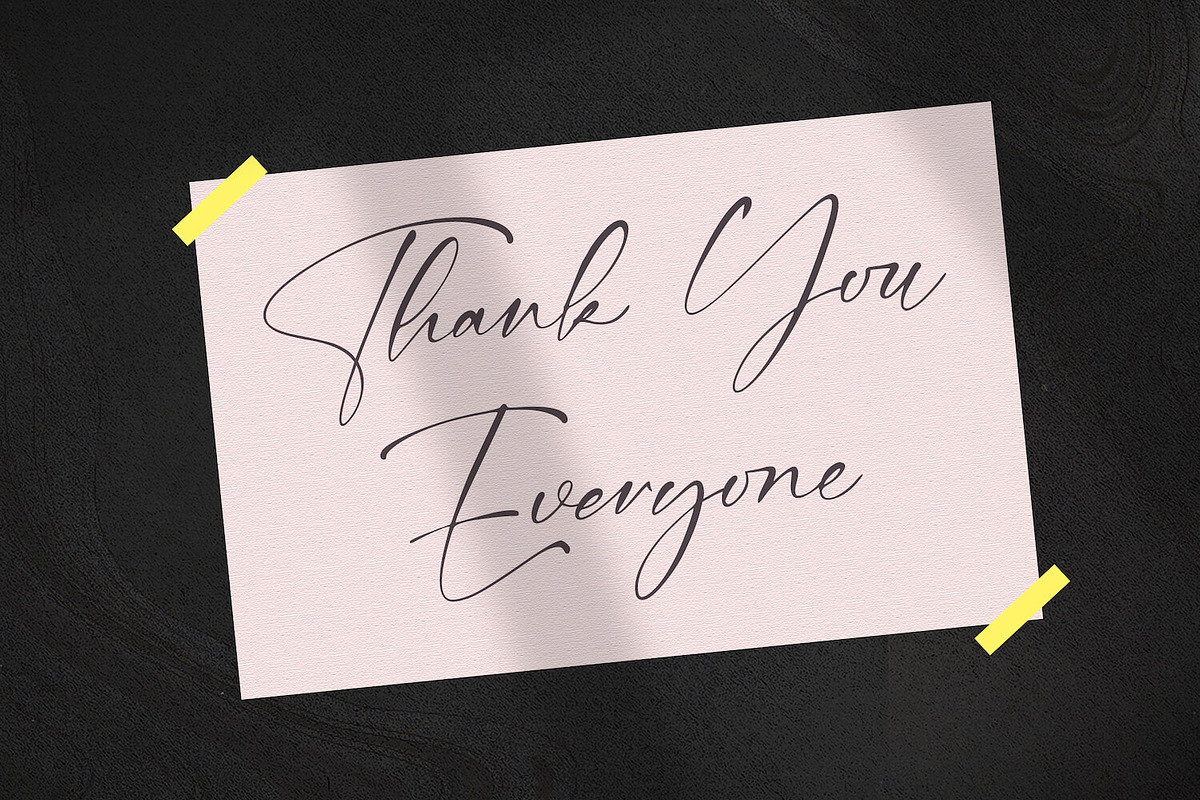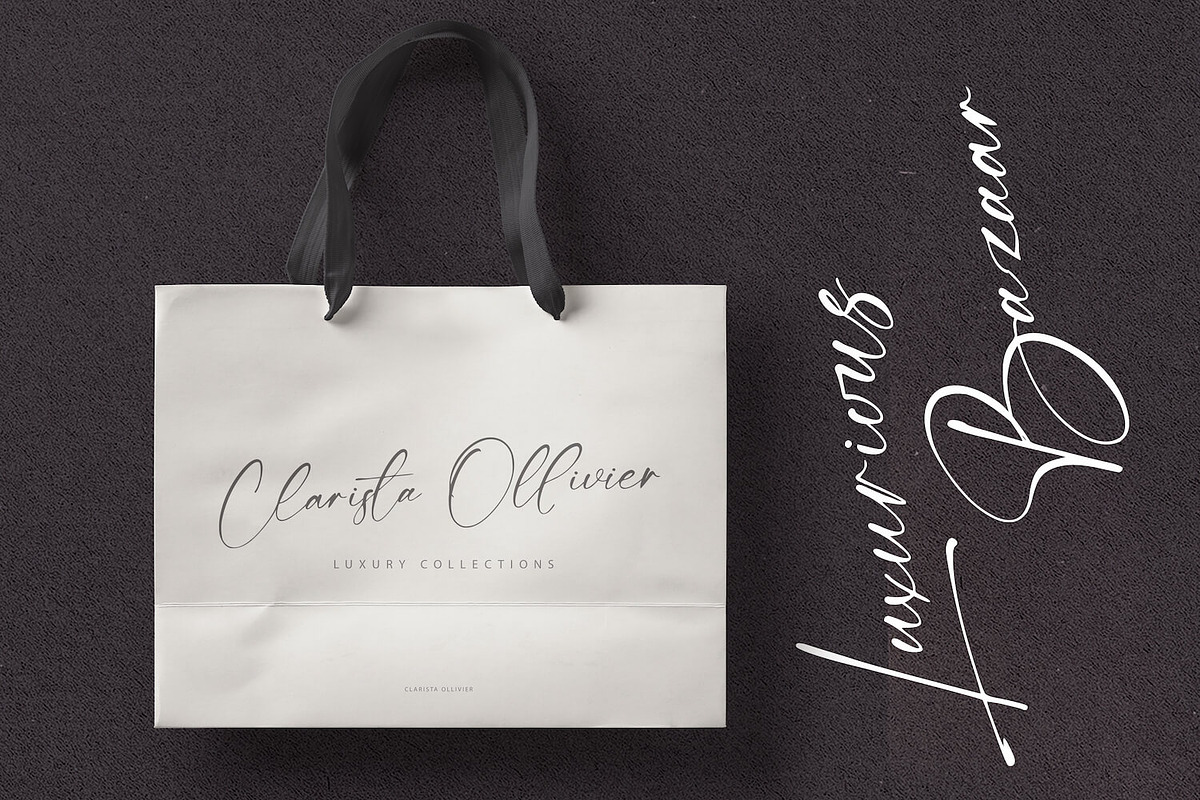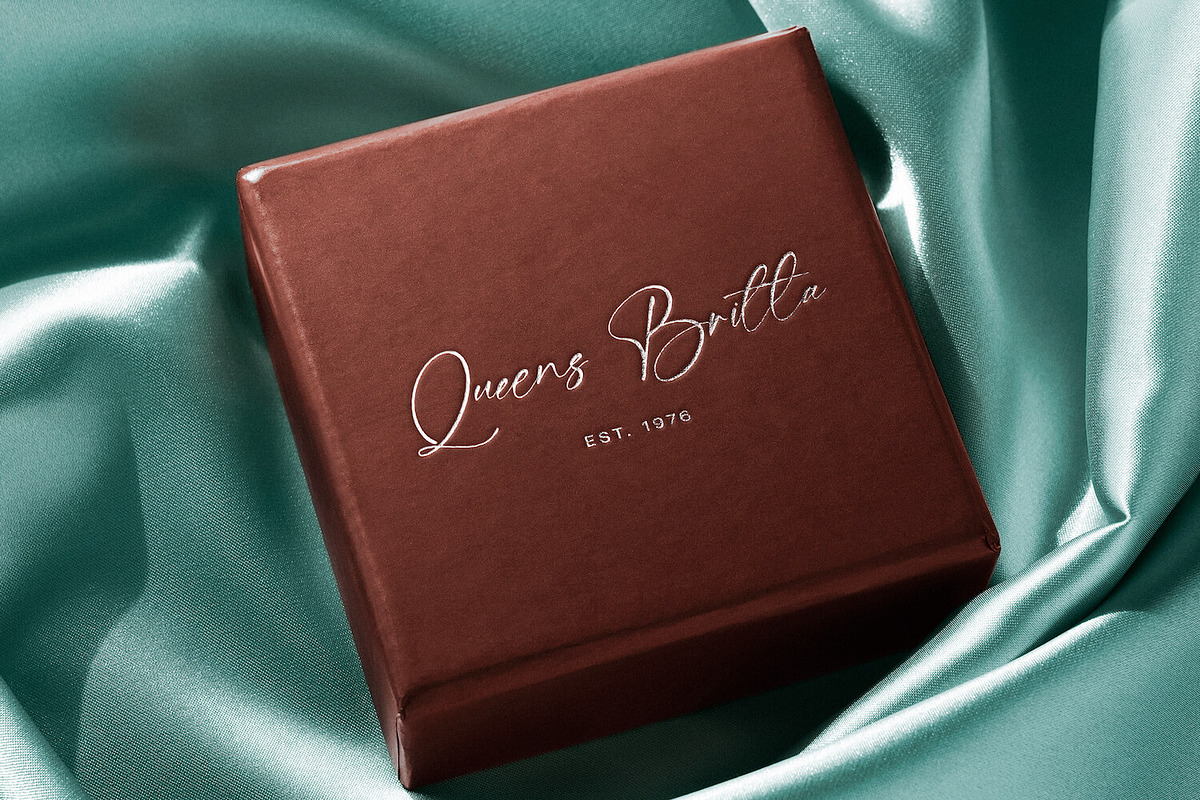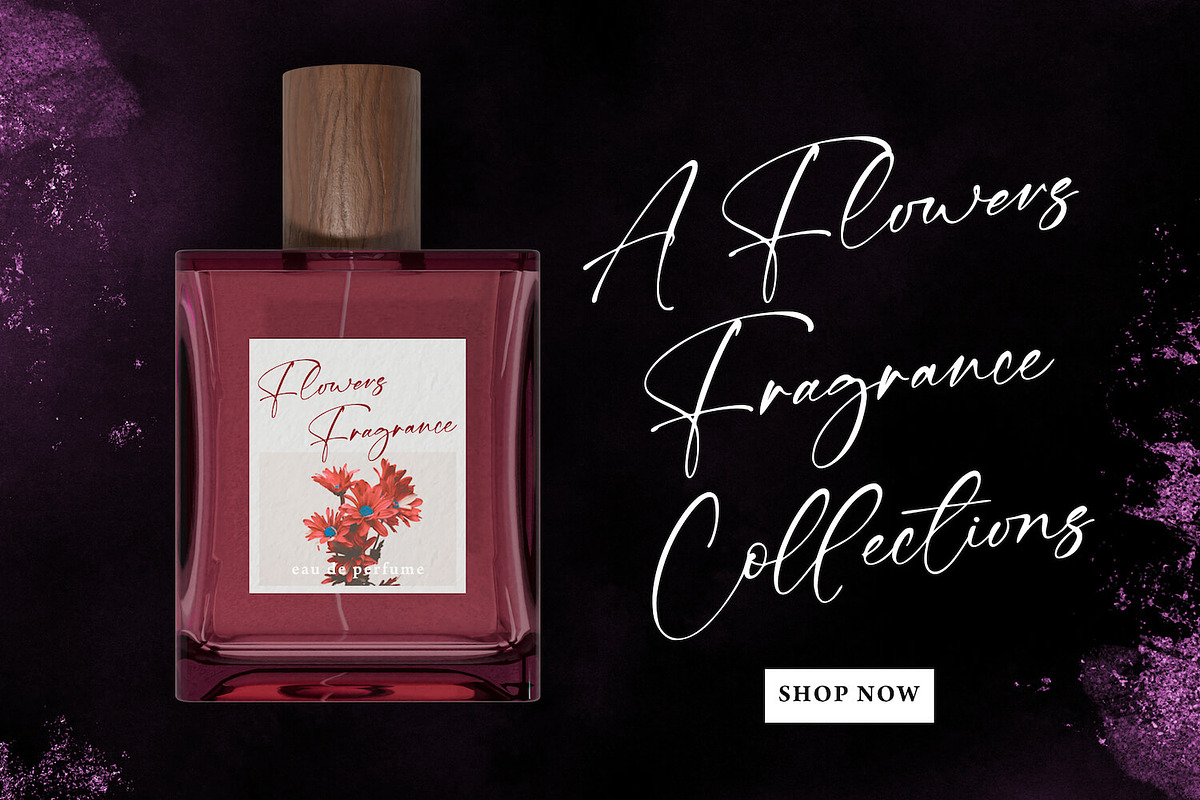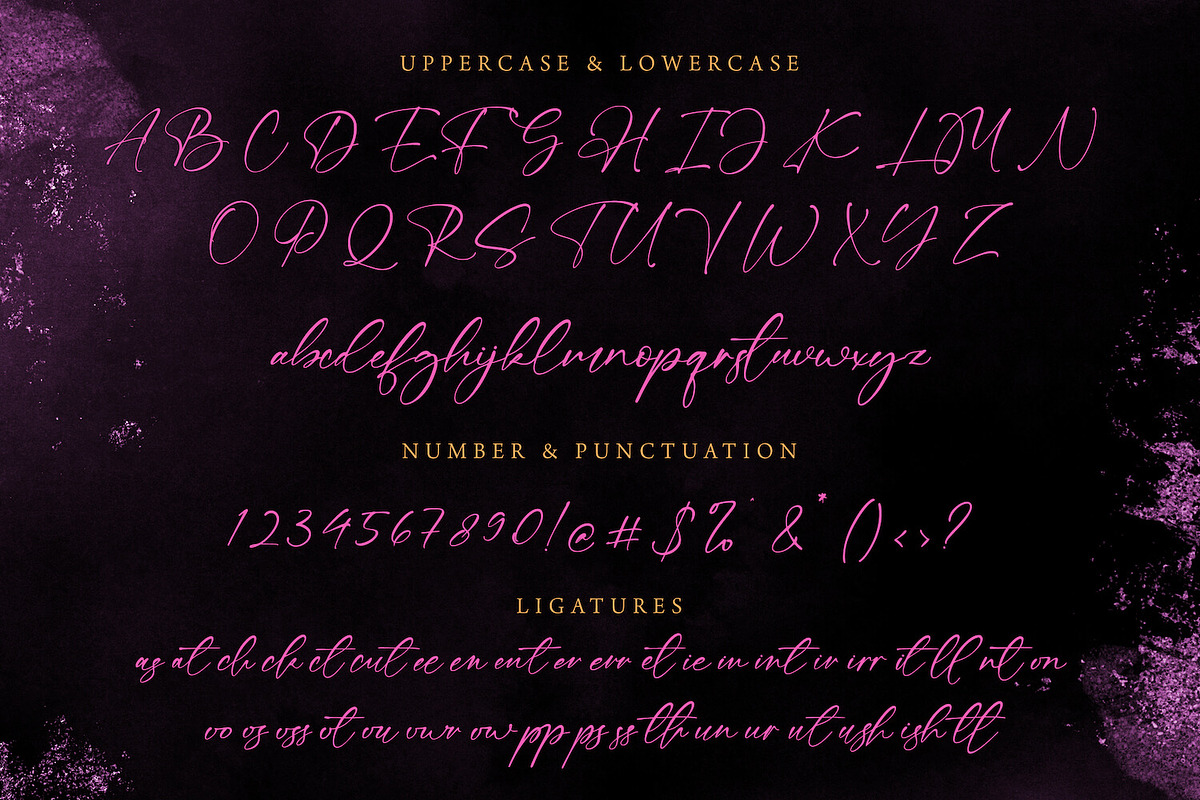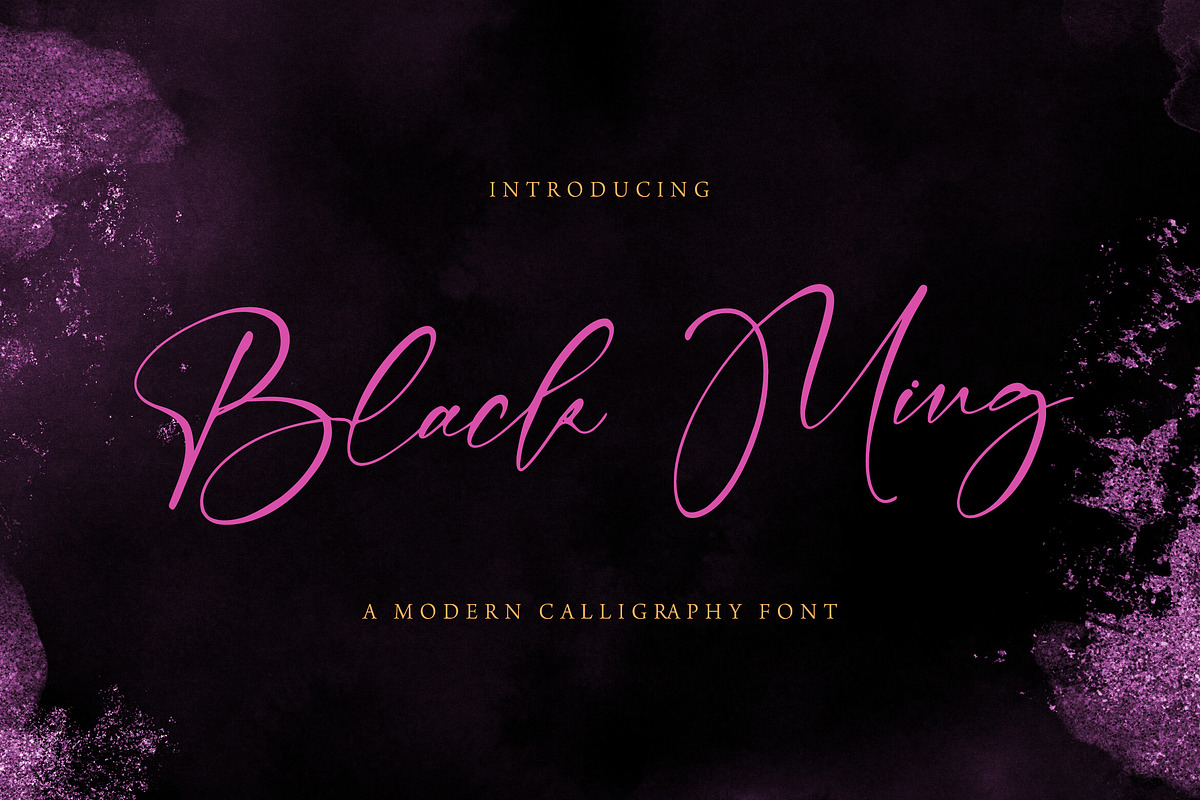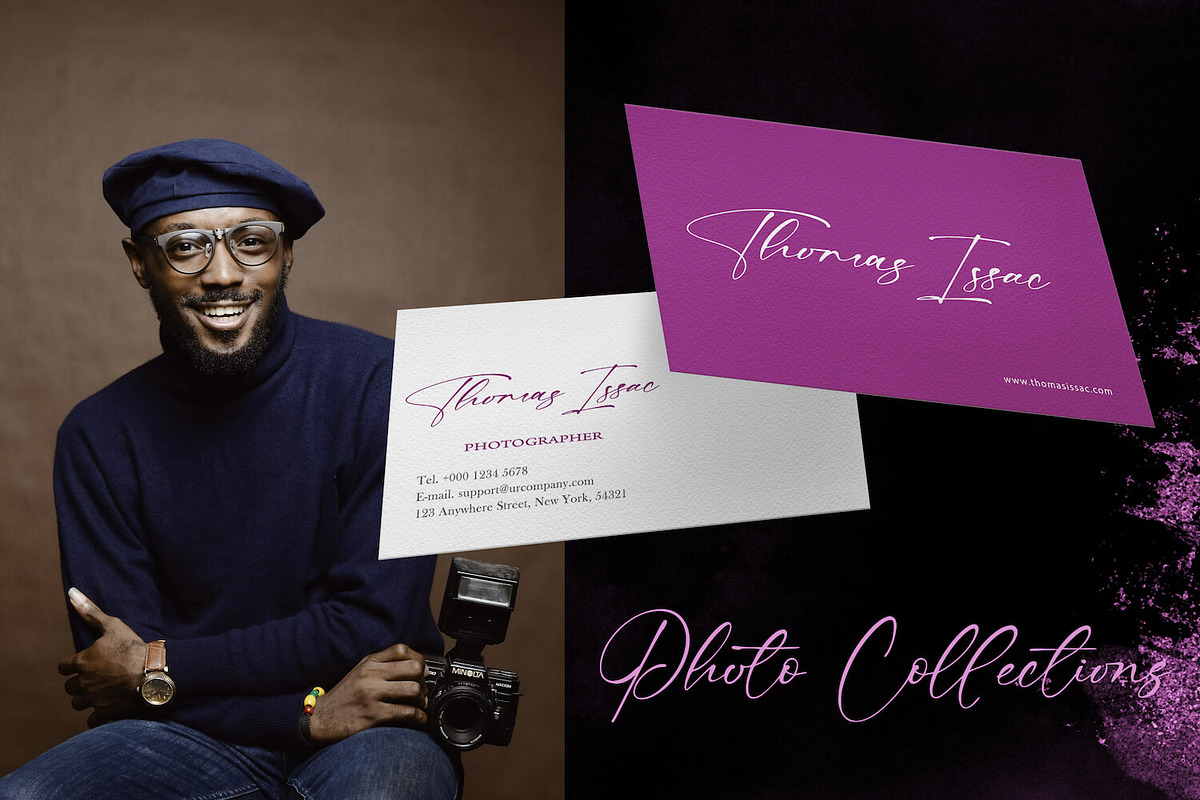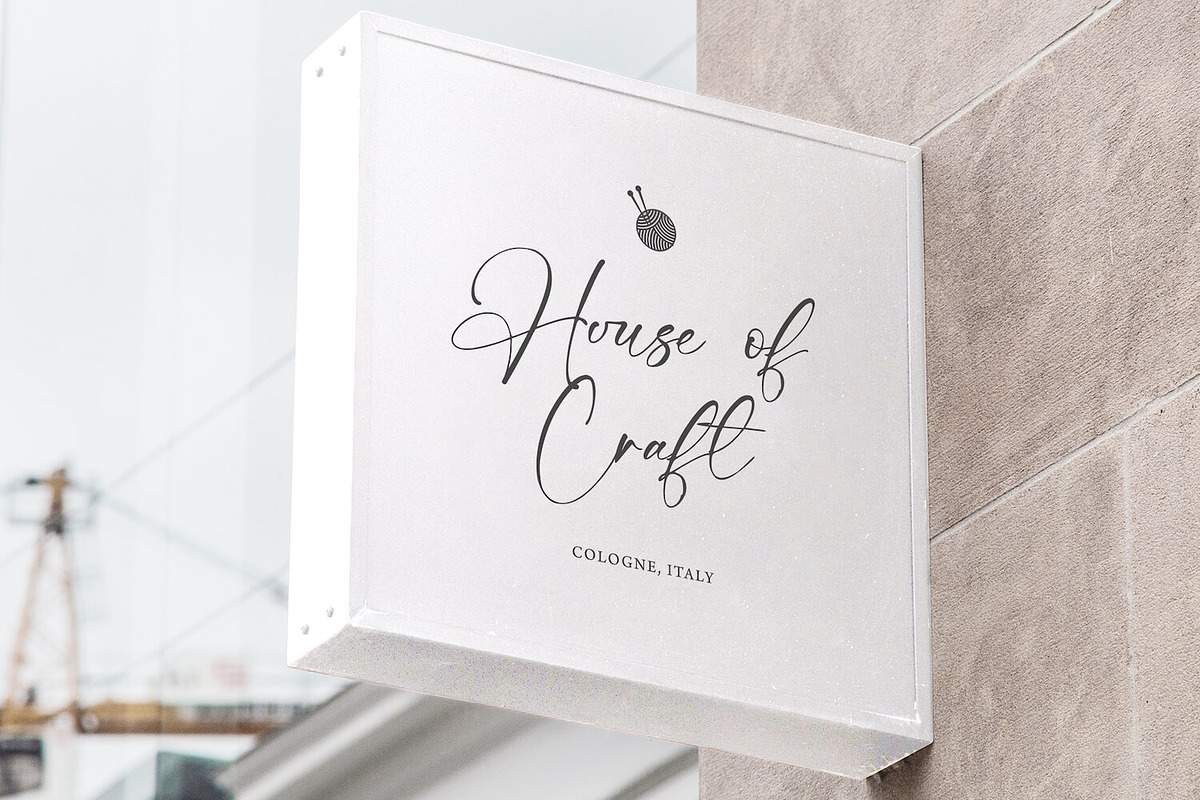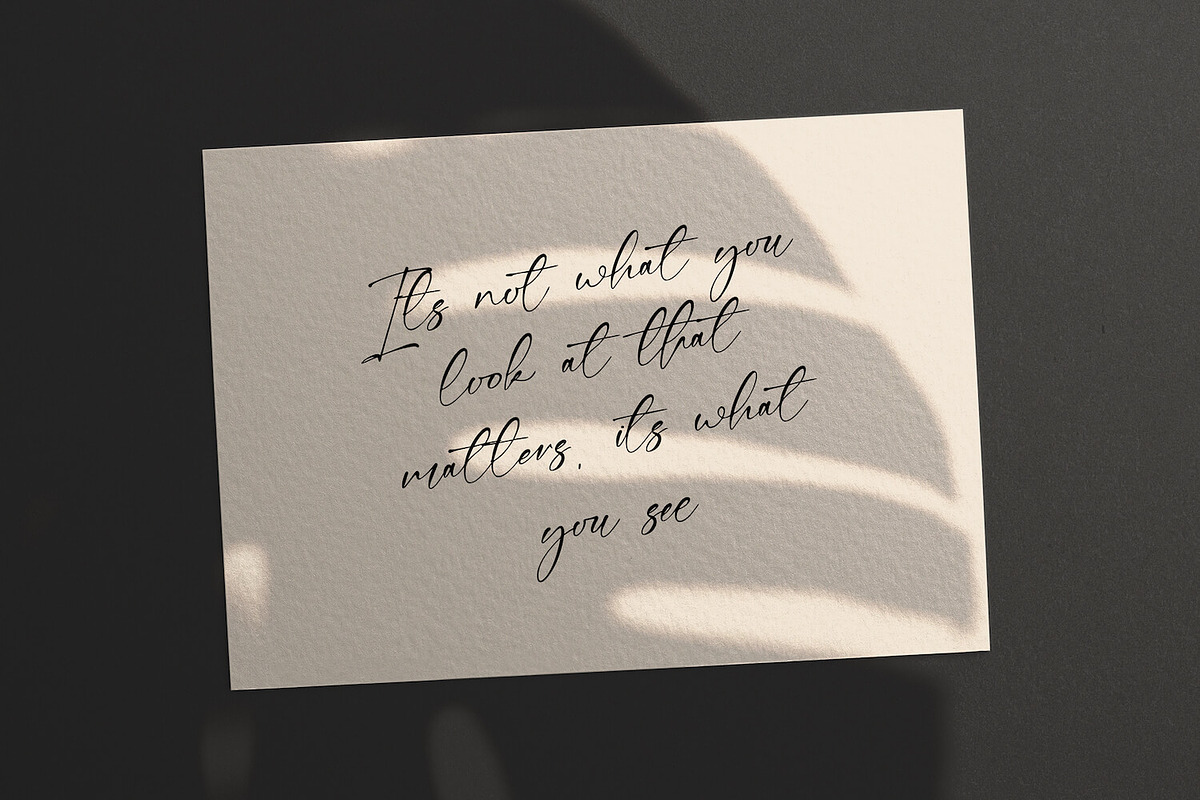
Black Ming - Calligraphy Font
Introducing Black Ming - Calligraphy Script Font
Black Ming is an exquisite handwritten font, masterfully designed to become a true favorite. It maintains its classy calligraphic influences while feeling contemporary and fresh. Fall in love with it and bring your projects to the highest levels!